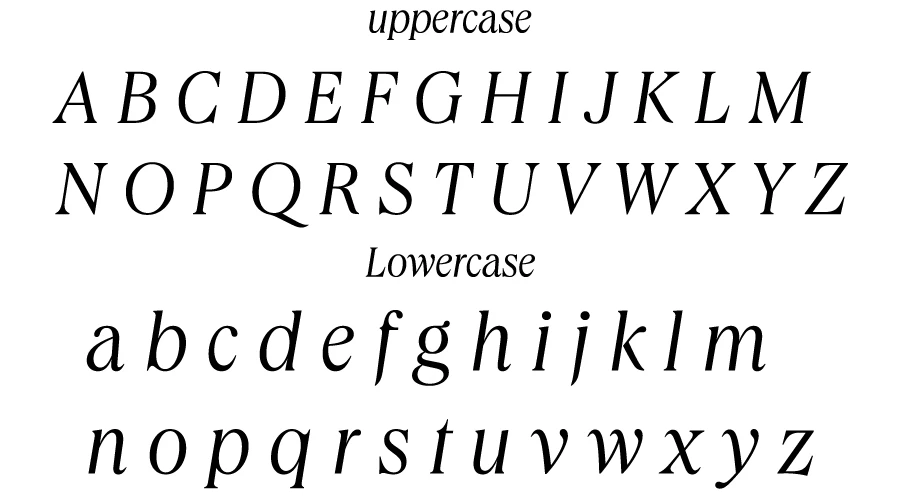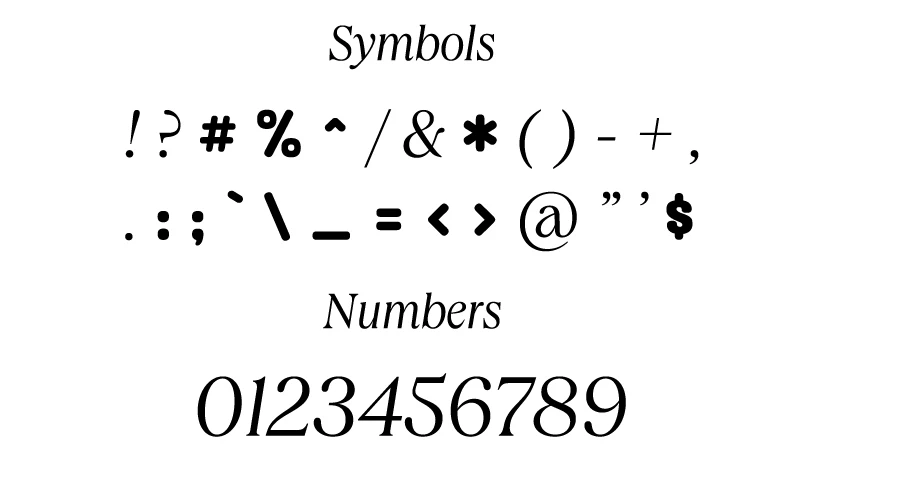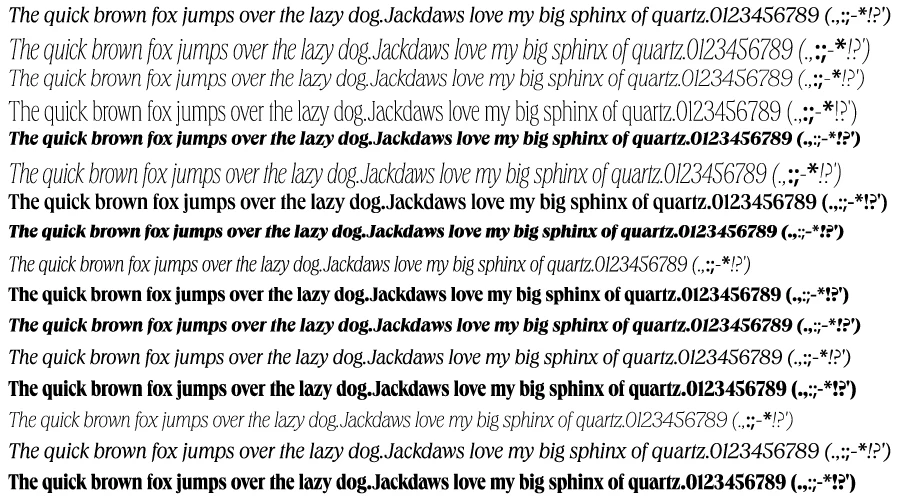
The Queens is a Serif typeface. It has a mixture of classic Bodonis and Didots and 1970s phototype features. This font is popular among other contemporary fonts out there. Sebastian Losch designed this typeface and released it on December 03, 2019, through Kilotype Foundry.
He studied typeface design at the University of Reading and worked in London for many international clients. He has his own foundry named Kilotype. It was founded in 2018. Frequenz (2018), Oldschool Grotesk, and Queens are fonts from his foundry.
The design of the Queens font features a distinctive backward-leaning lowercase a and an extremely large x-height. The family of this font is available in 7 weights (300-800).
It also has three distinct widths: compressed, condensed, and standard (25–100). Additionally, it has both Latin and Vietnamese characters. However, if you purchase the complete family, you will receive additional Queens Variable Fonts, which will give you more flexibility and fine-grain control.
Queens font is a versatile font that can be used in many different ways. You can use this font in the band’s logo, children’s book illustrations, custom illustrations, flyers, banners, and book covers. This font is easy to use and can be adapted to any project.
Also, you can use this font for Branding projects, T-shirt designs, Brochures, Homeware designs, App designs, Website and Blog templates, Gaming purposes, Social Media Posts, Advertisements, Magazines, and Online/Offline newspapers as well.
Font pairing
- Queens+Untitled Sans
- Queens+Neue Montreal
- Queens+Good Sans
Similar fonts
- Domaine Display
- Monarch Nova
What type of font is this?
Ans: The Queens is a Serif typeface. It has a mixture of classic Bodonis and Didots and 1970s phototype features.
Who designed the font?
Ans: Sebastian Losch designed this typeface and released it on December 03, 2019 through Kilotype foundry.
Are there any other free fonts like this?
Ans: As a free alternative, you could use “Domaine Display.”